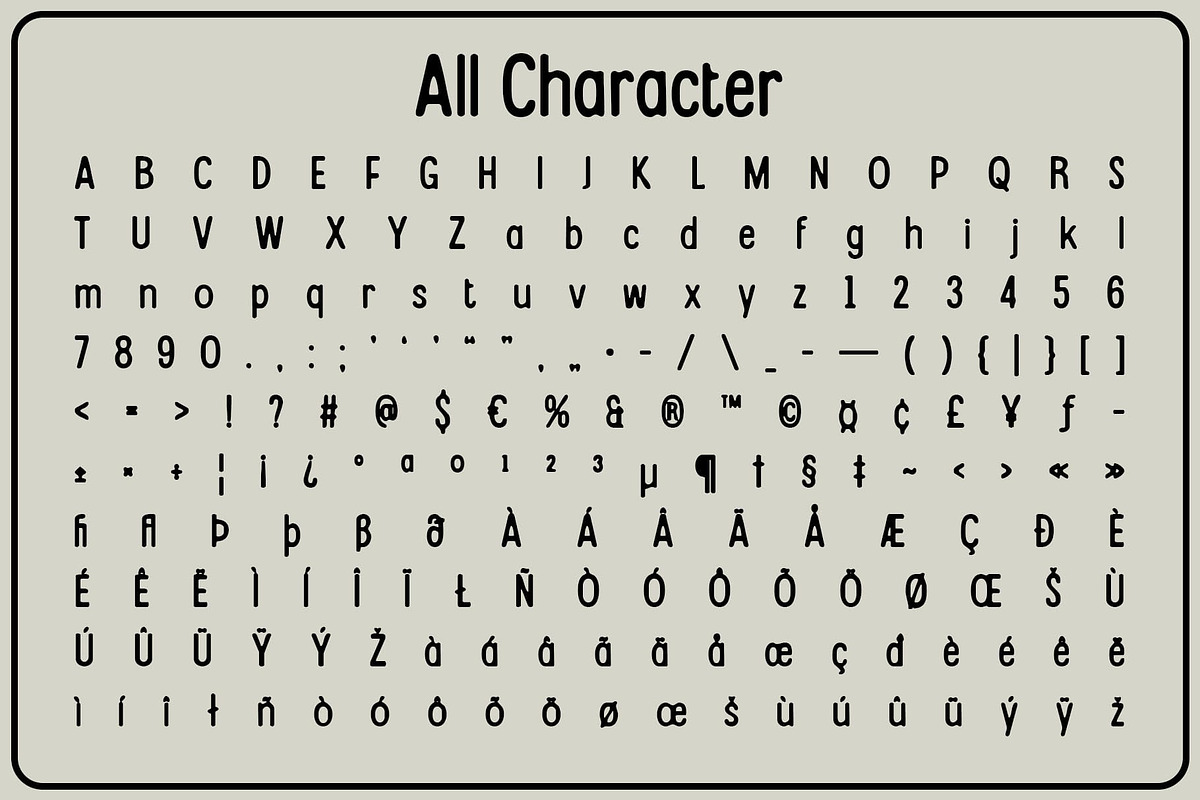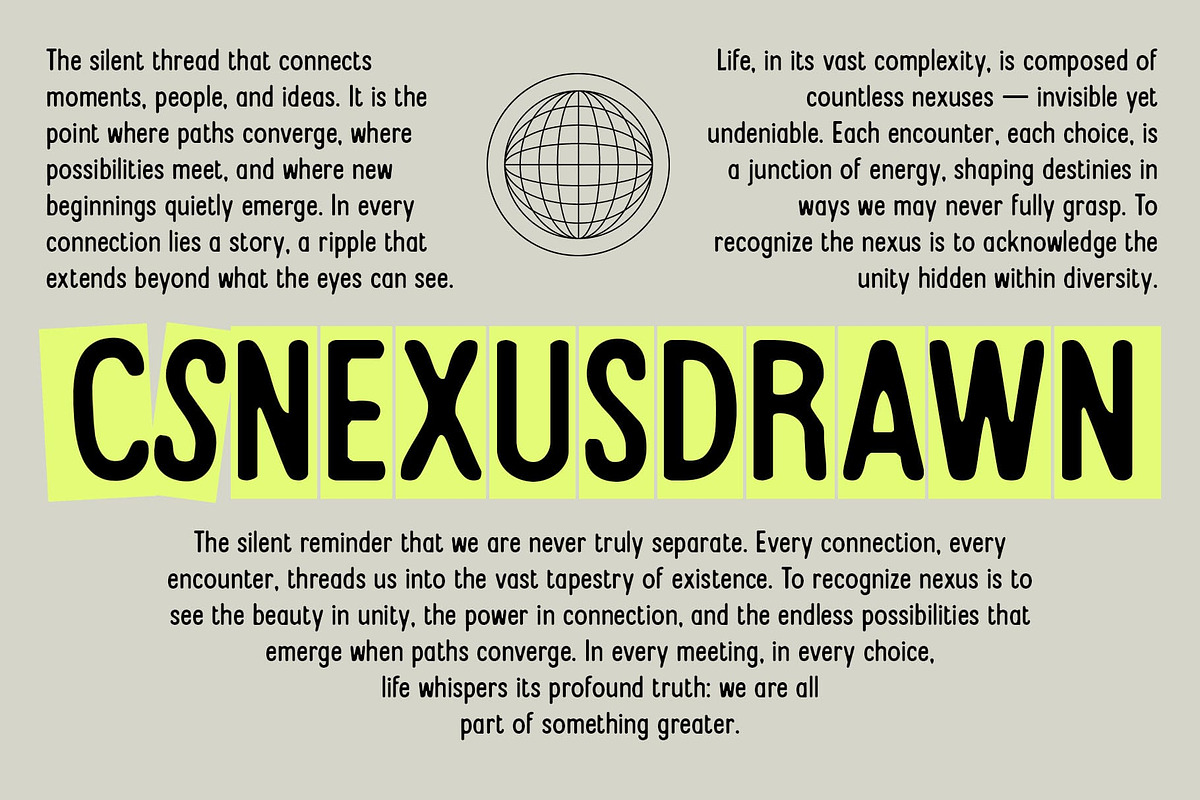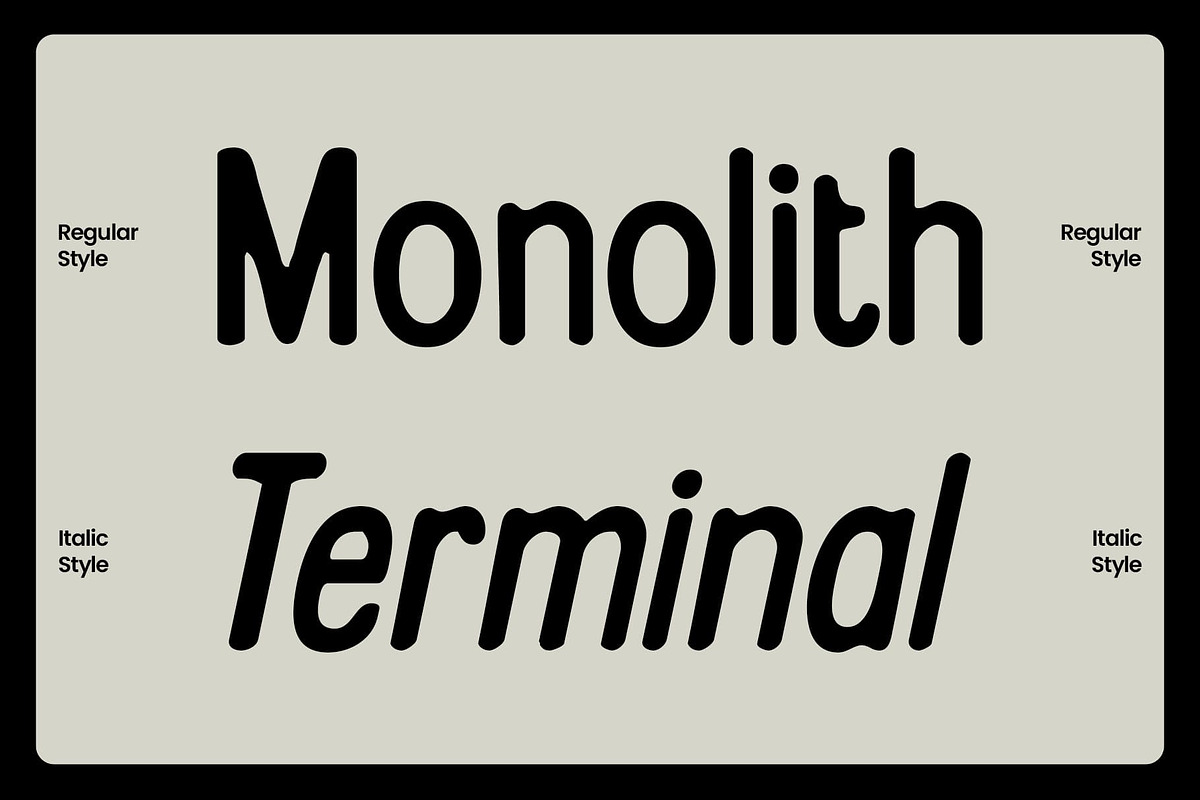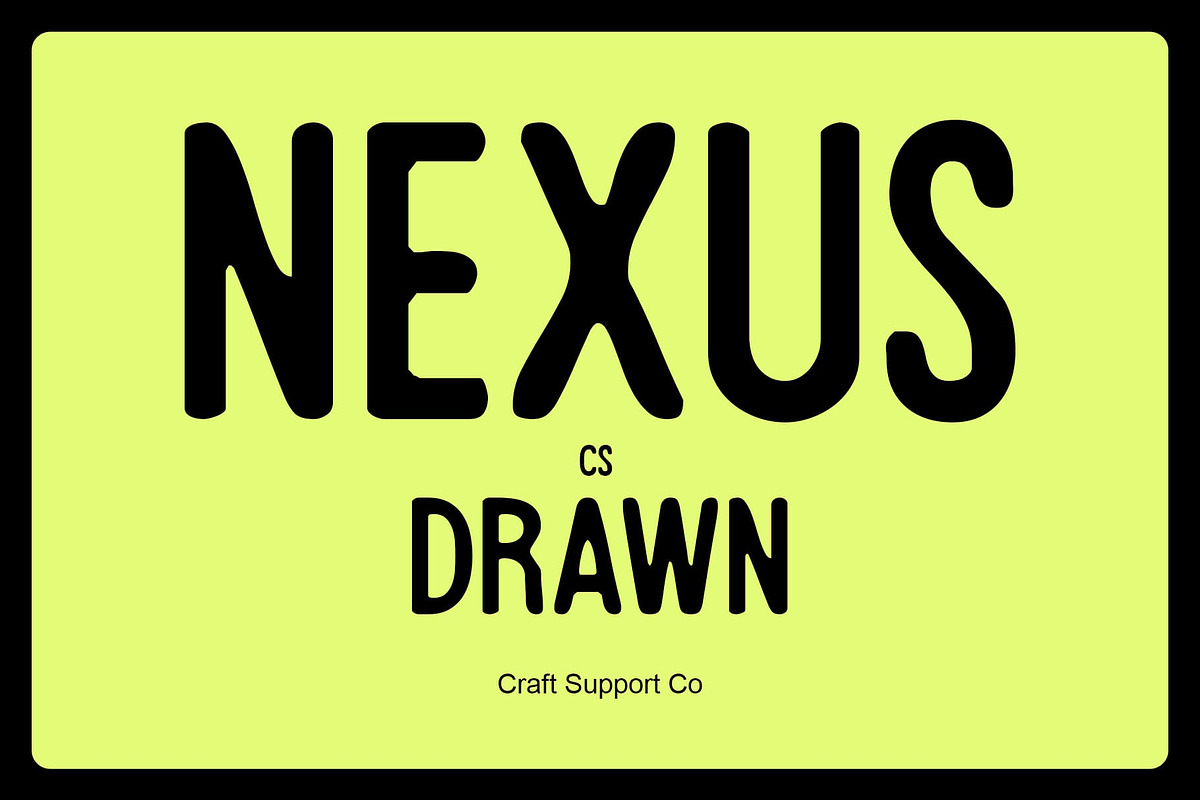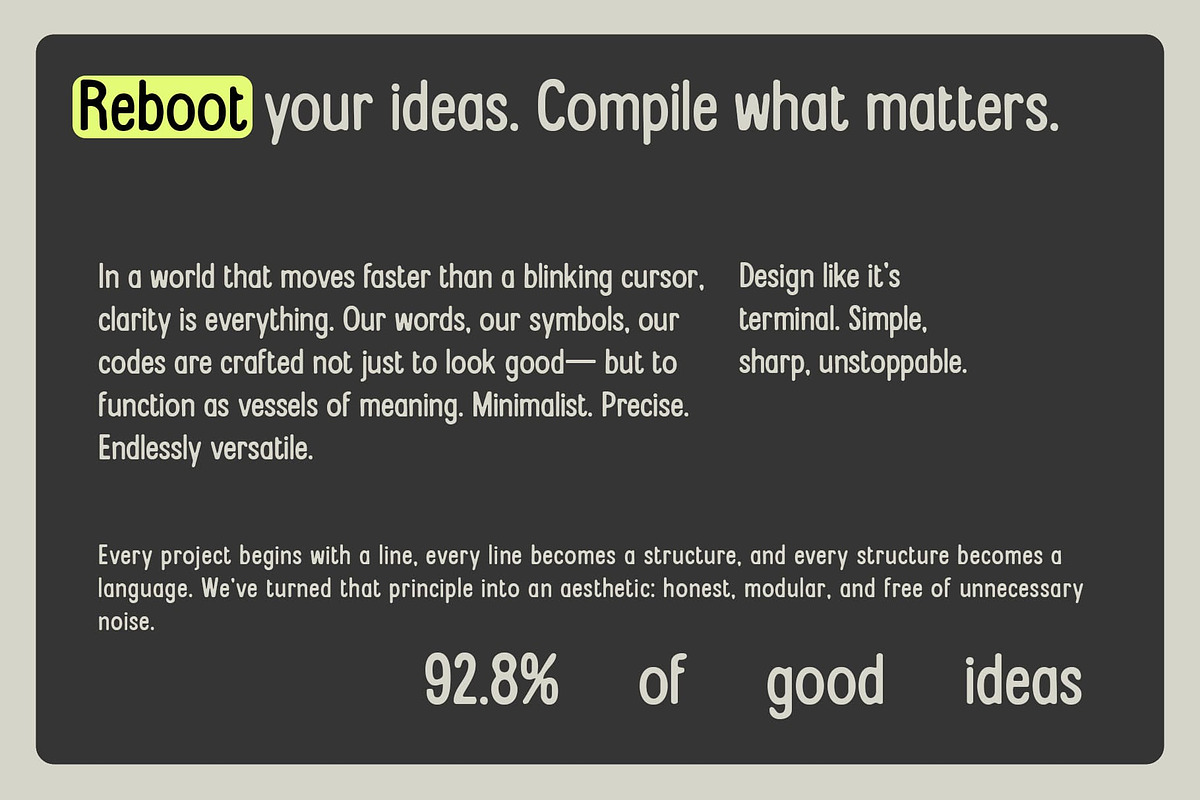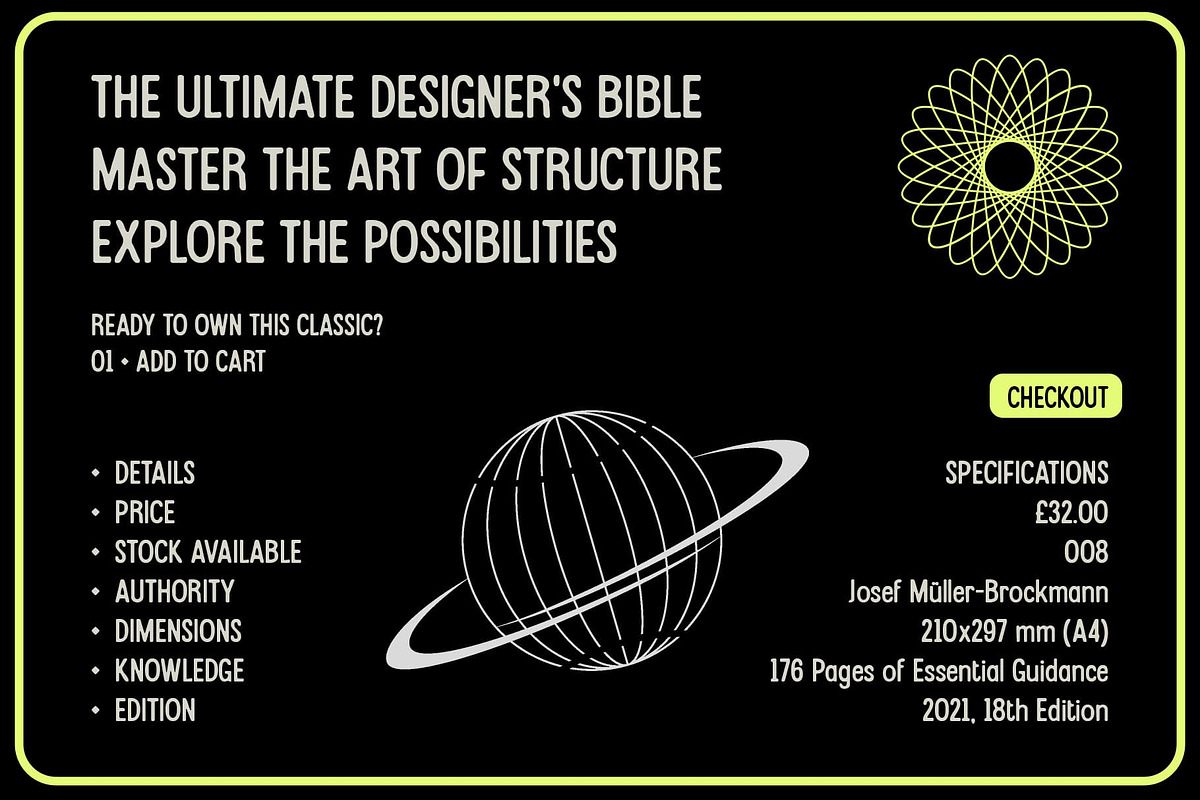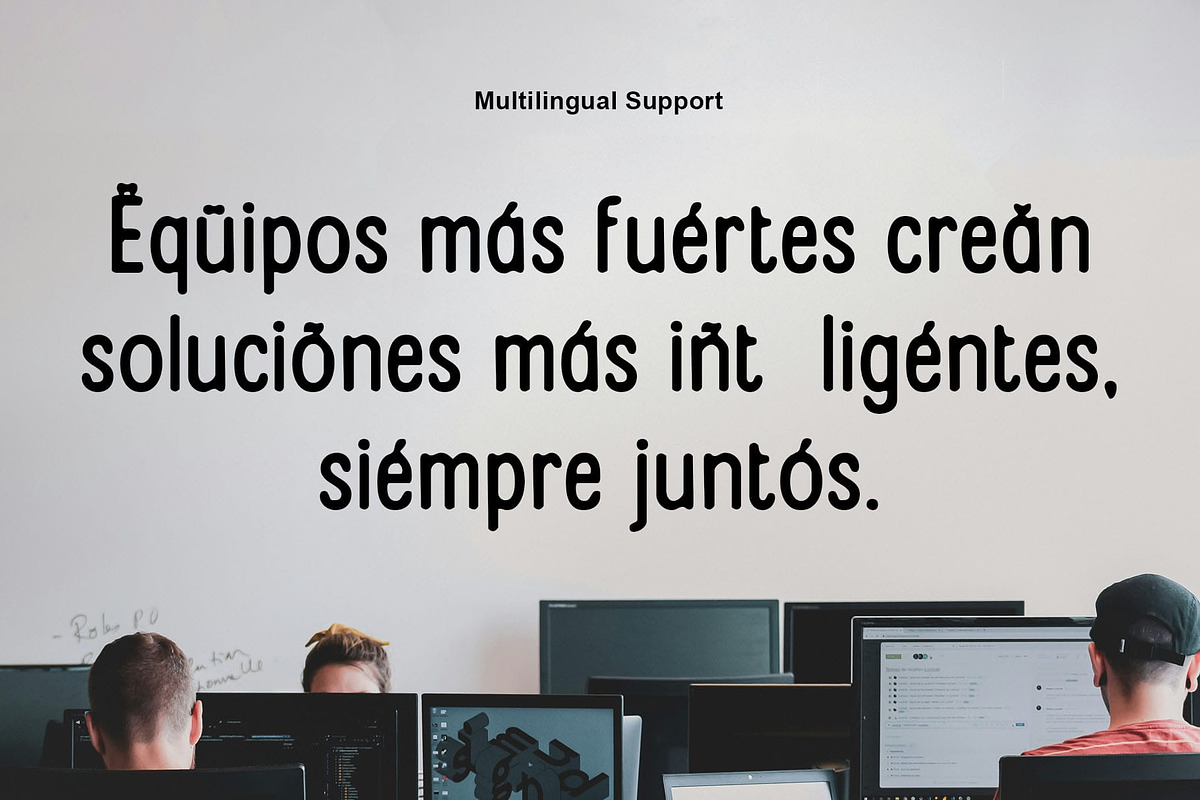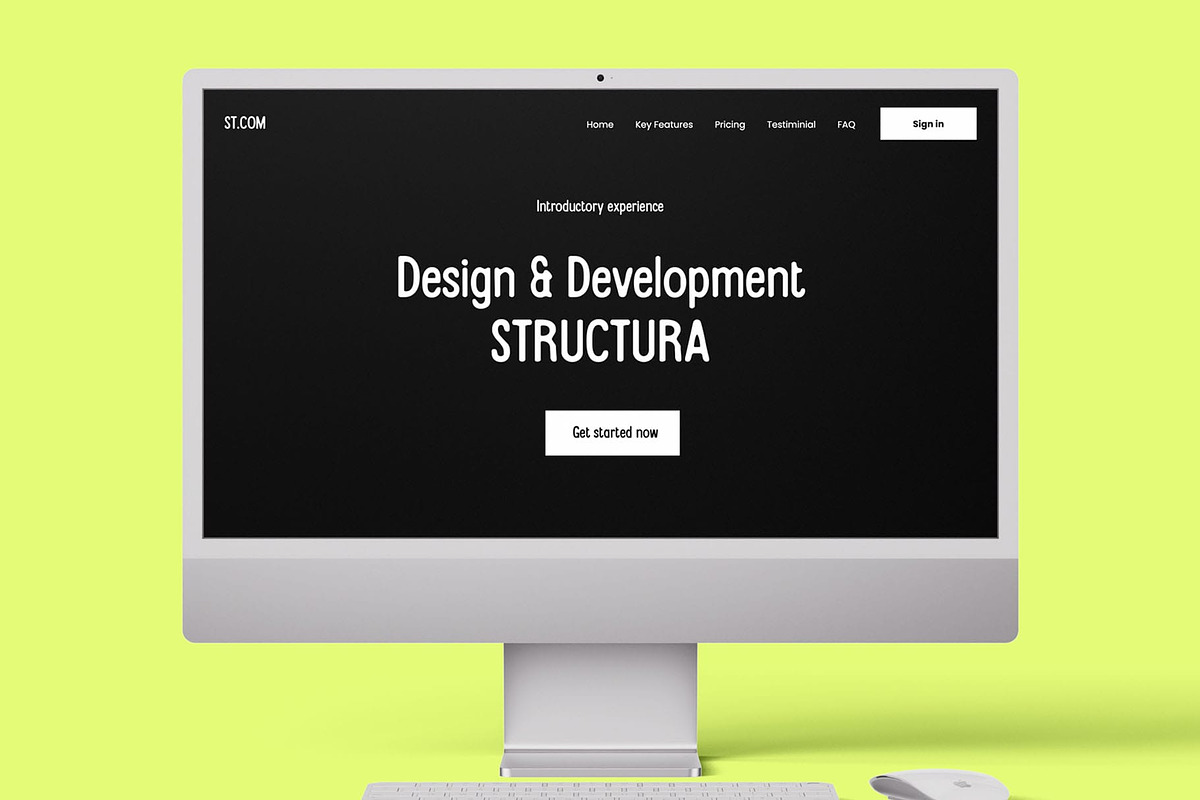
CS Nexus Drawn
CS Nexus Drawn – Condensed Sans Serif with Graceful Handmade Texture and Modern Condensed Display
Slim and Contemporary Form Is a condensed modern font defined by its long, slim sans serif structure. Its elegant proportions bring a sense of sophistication, making it perfect for projects that demand both clarity and style. The condensed design ensures maximum impact while maintaining readability in tight spaces.
Hand-Drawn Texture with Personality What sets apart is its drawn, handcrafted texture. This detail enriches the clean, modern form with subtle imperfections that add warmth and individuality. Each character feels alive, blending precision with artistry to create a font that’s both contemporary and expressive.
Balancing Elegance and Artistry Thrives on contrast its refined geometry speaks to modern elegance, while its drawn effect introduces creative depth. This balance makes it versatile, suitable for projects that require a touch of sophistication without losing personality.
Perfect for Luxury and Editorial Design Ideal for luxury branding, posters, and editorial layouts, adapts seamlessly to high-end and creative contexts. Its condensed shape ensures efficiency in display use, while its graceful texture guarantees distinction. Designers seeking refinement fused with artistry will find this font an exceptional choice.